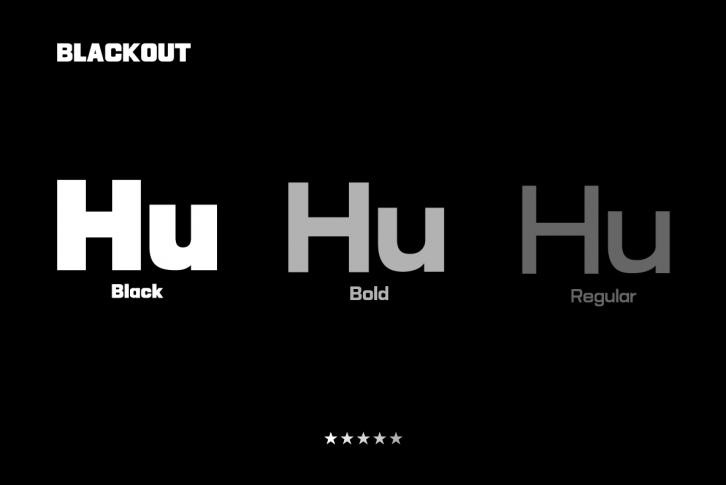
HU Blackout is a cool, bold and thick lettered display font. No matter the topic, this font will be an incredible asset to your fonts’ library, as it has the potential to elevate any creation.